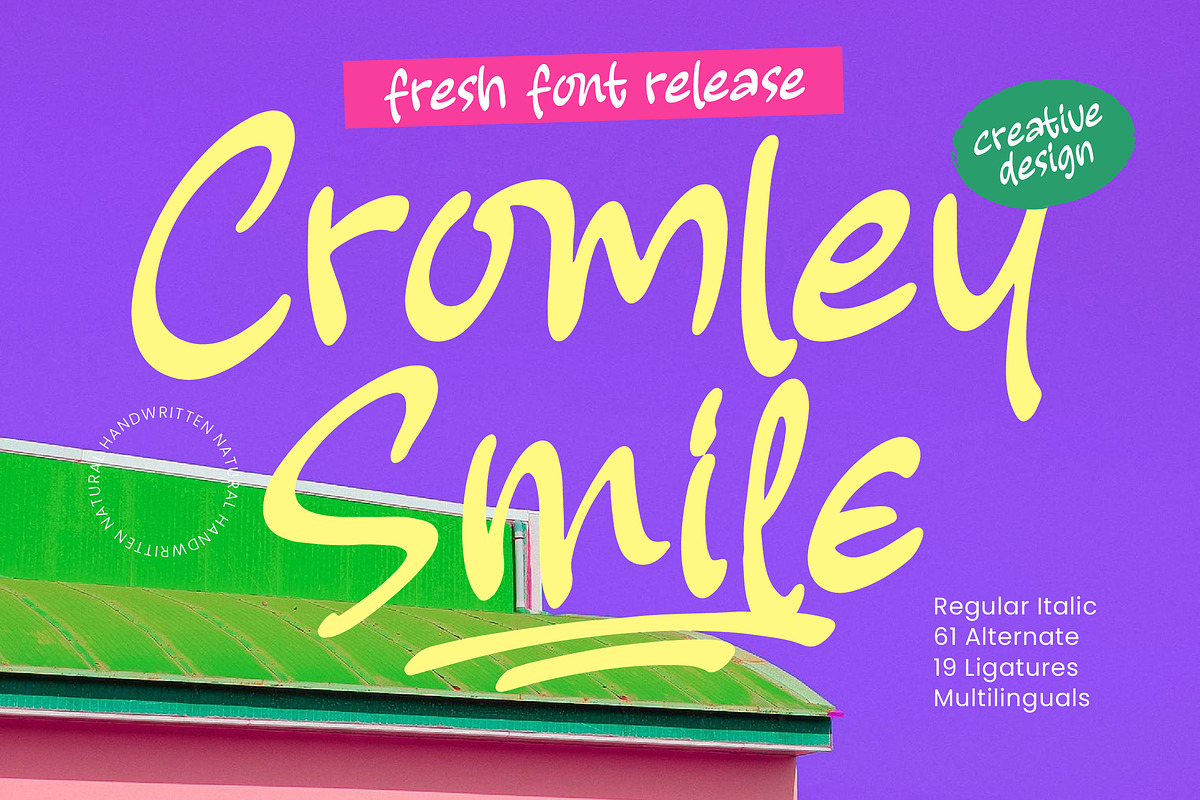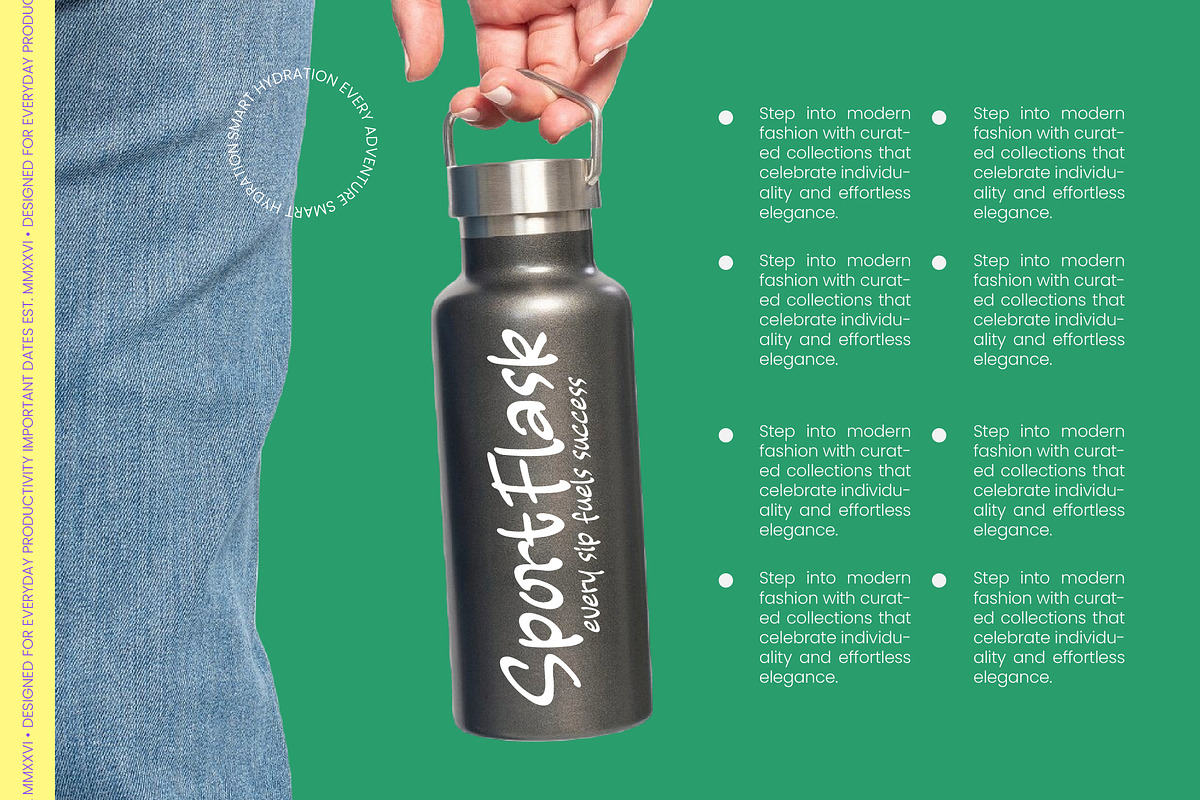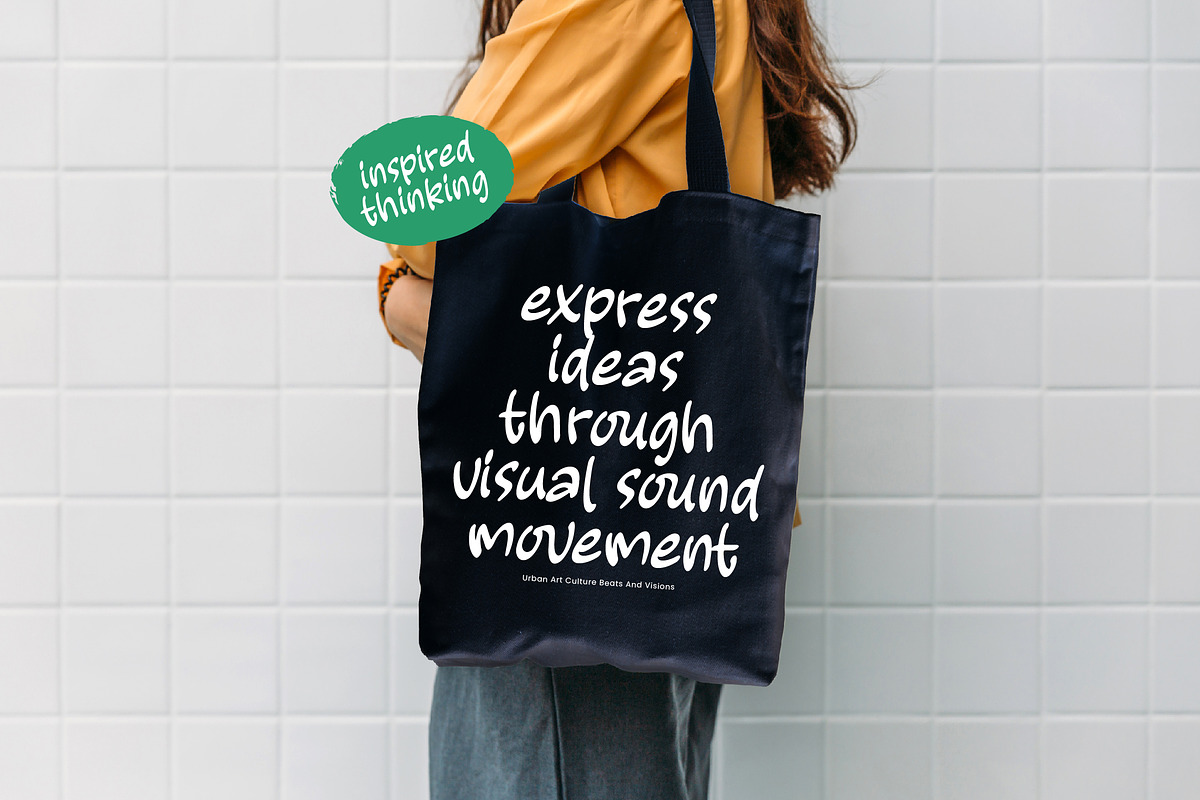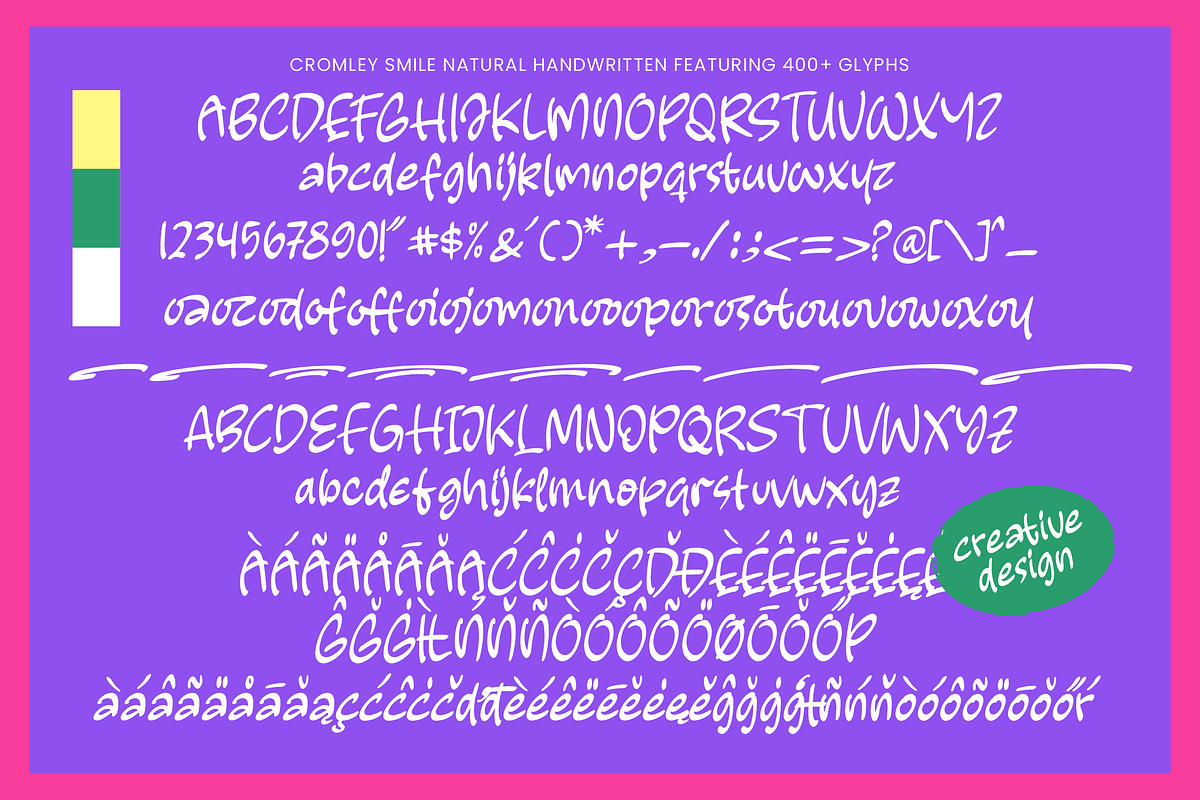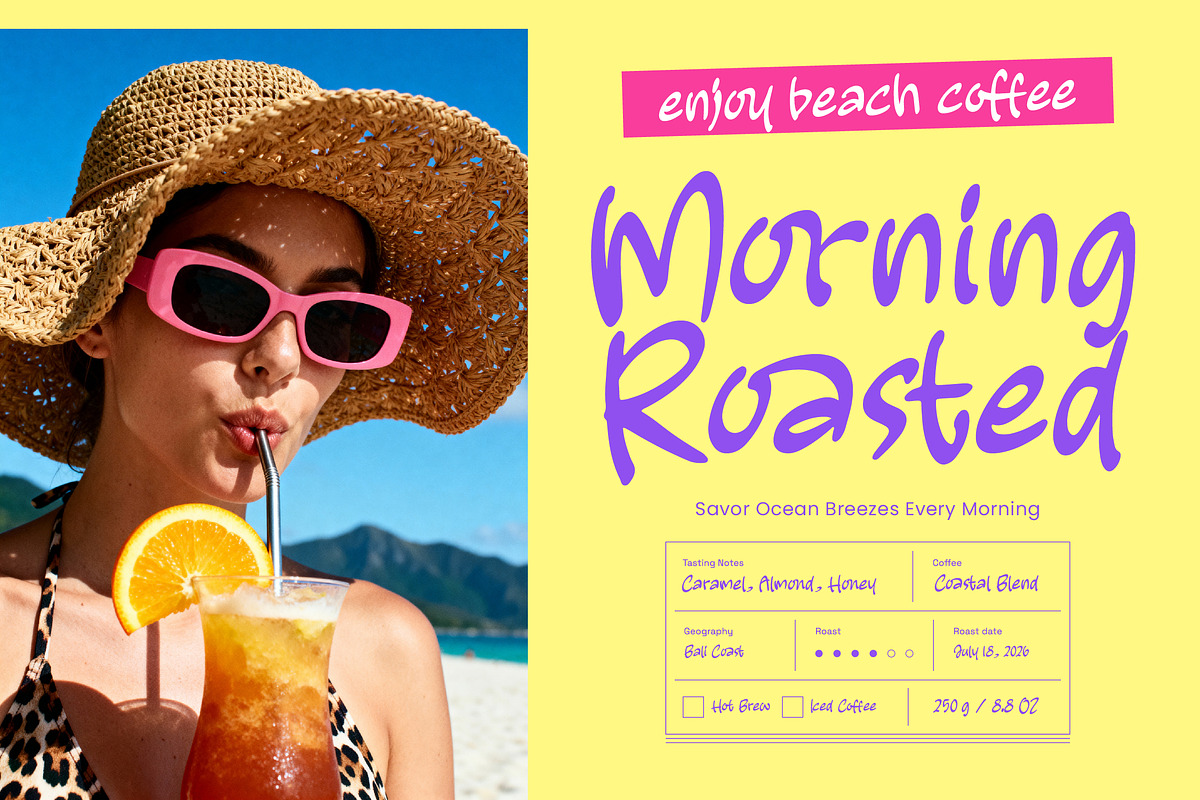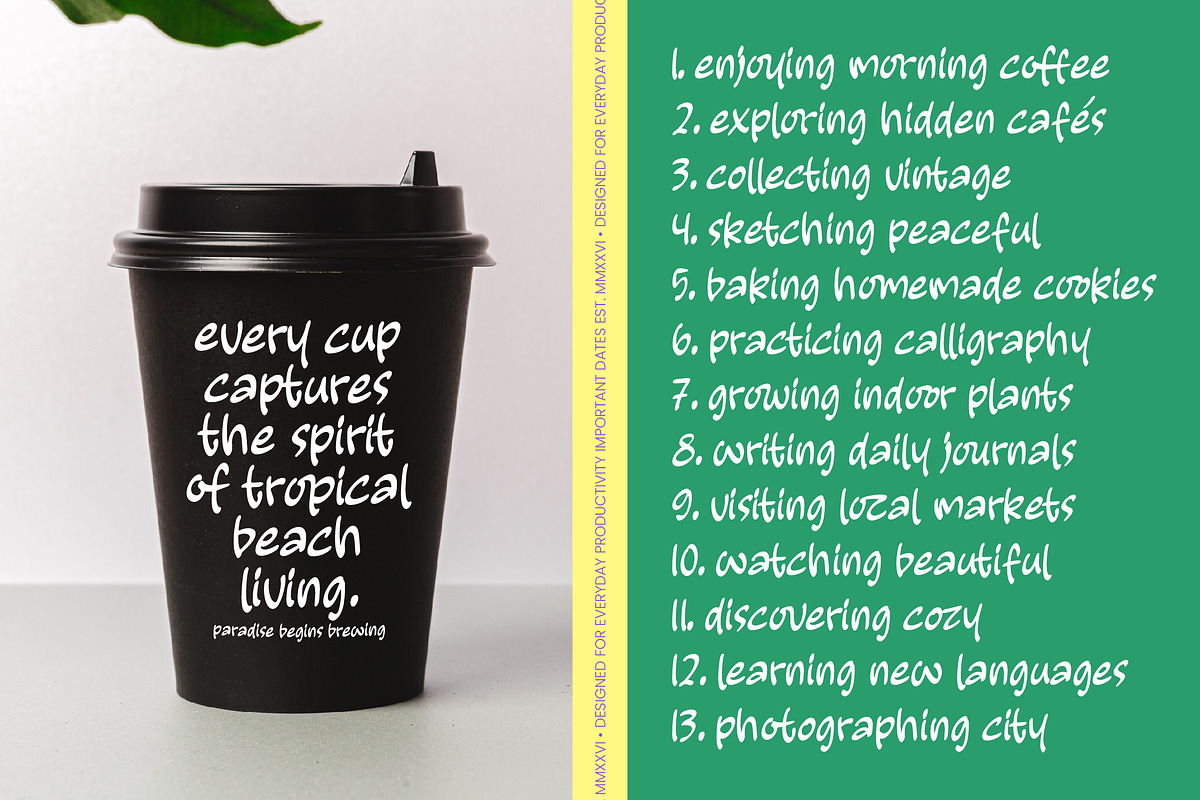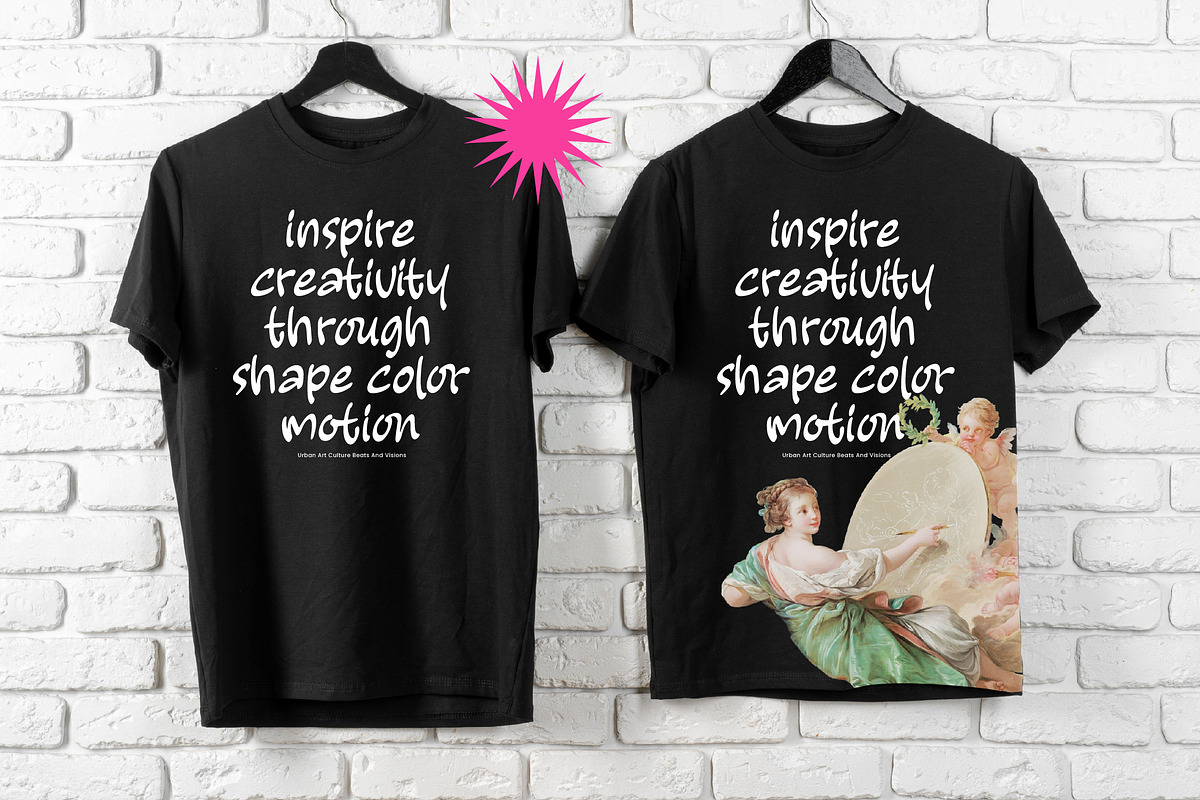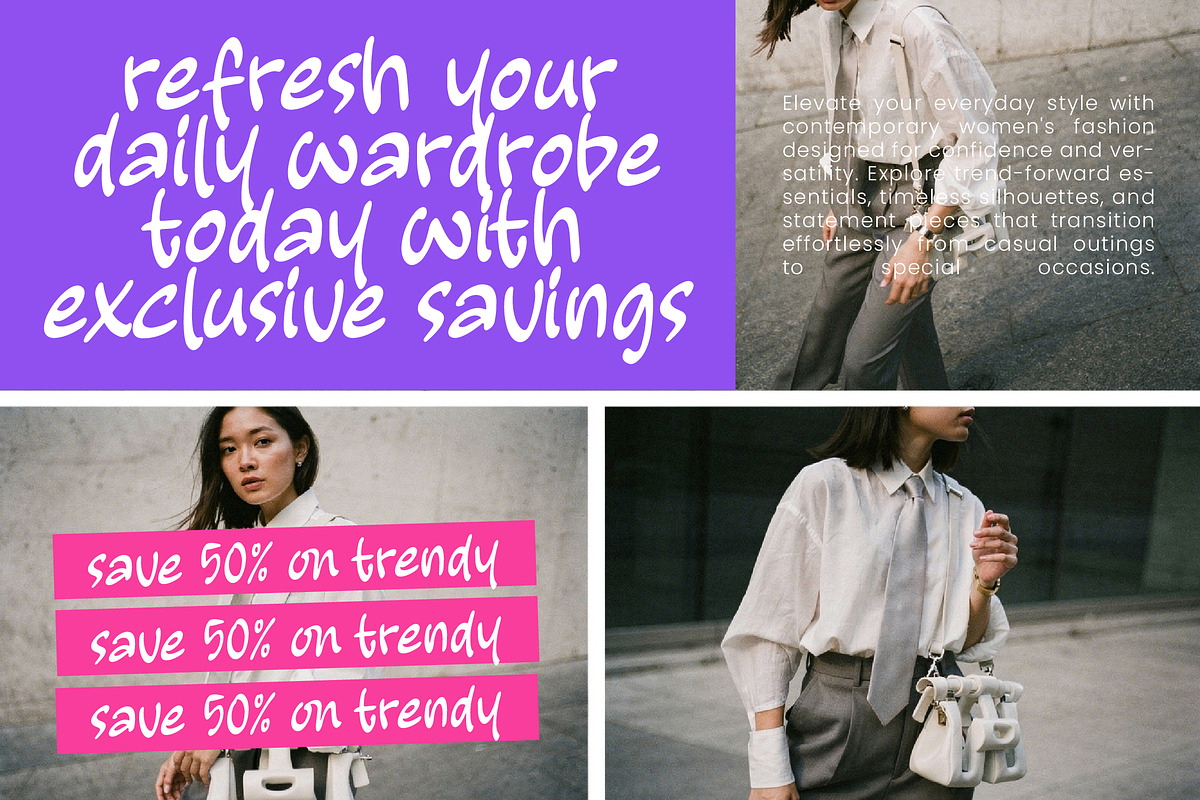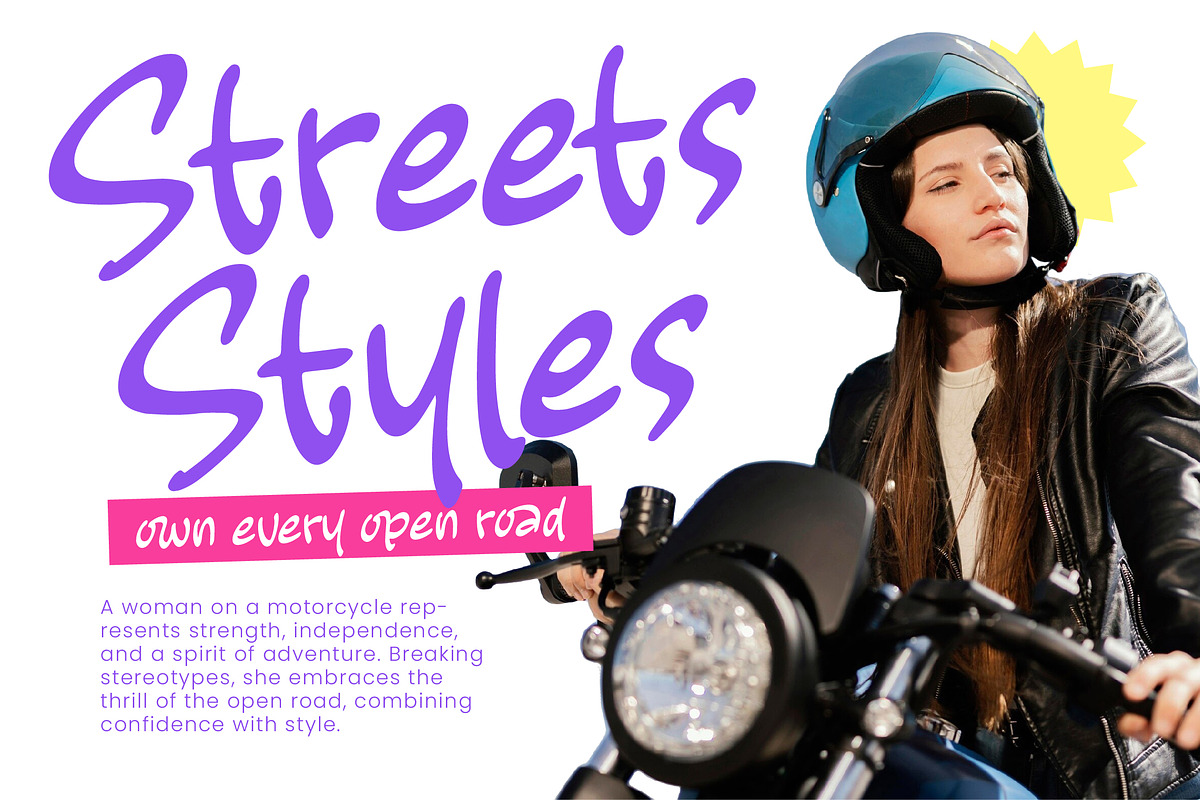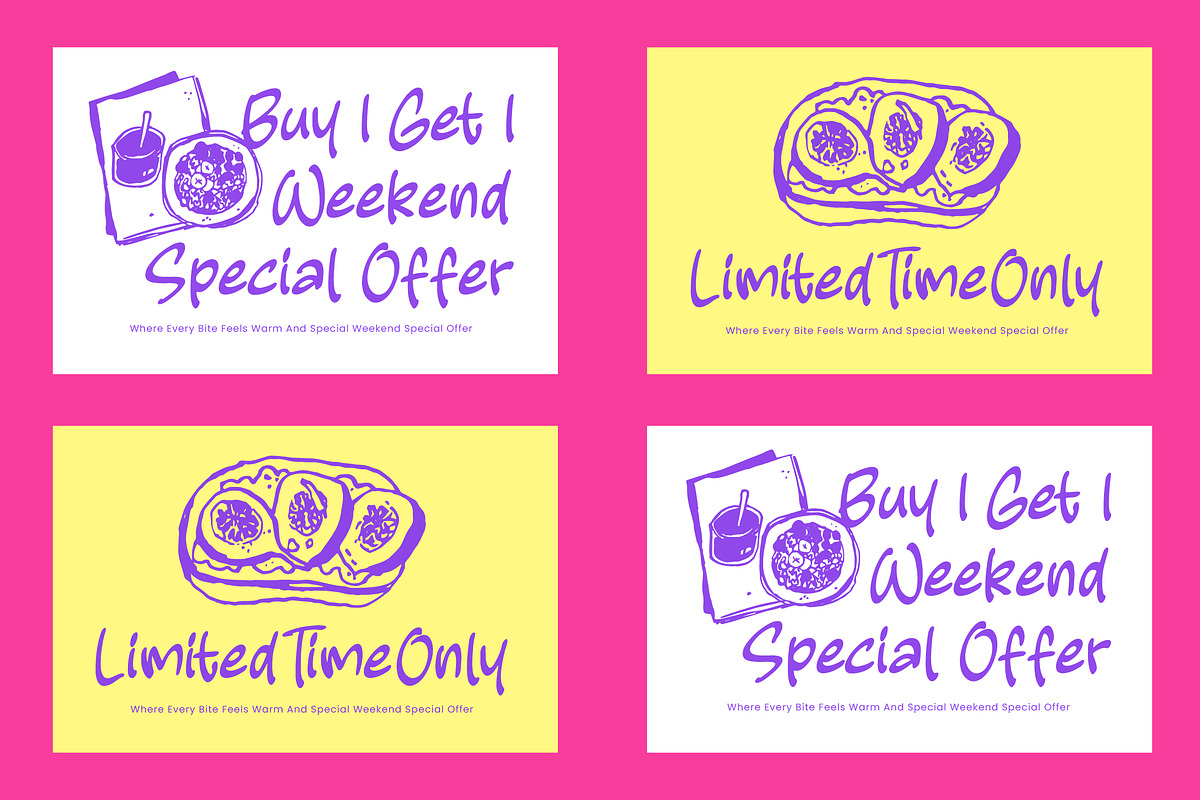
Cromley Smile Natural Handwritten
Cromley Smile - Natural Handwritten , Discover the perfect fusion of organic charm and professional craftsmanship with Cromley Smile - Natural Handwritten. This typeface captures a vibrant, hand-crafted essence through its fluid strokes and rhythmic flow, offering an authentic human touch to any digital canvas. By prioritizing legibility without sacrificing its unique personality, Cromley Smile - Natural Handwritten serves as a powerful tool for designers looking to inject energy and warmth into their creative compositions.
Expand your creative horizons with a typeface engineered for a connected world and diverse linguistic needs. With its extensive multilingual support, Cromley Smile - Natural Handwritten adapts seamlessly across global markets, making it incredibly versatile for international projects. The inclusion of 61 alternates and 19 ligatures ensures that every word feels custom-made, providing a bespoke aesthetic that keeps your messaging fresh and engaging across various cultures.
Elevate your brand identity with a font that resonates with authenticity and modern style in every letterform. Cromley Smile - Natural Handwritten is the ideal application for luxury branding, boutique packaging, and editorial design, where a high-end yet approachable feel is required. Whether used for social media graphics, lifestyle blogs, or chic retail signage, it is perfect for projects that demand a sophisticated and personalized visual narrative.
Experience the ultimate in typographic flexibility and commercial impact by integrating this font into your professional toolkit. Cromley Smile - Natural Handwritten bridges the gap between casual expression and market-ready professionalism, ensuring your brand stands out in a crowded marketplace. This high-contrast handwritten font is a definitive choice for creators seeking a distinctive edge and a timeless, soulful aesthetic in their high-impact marketing materials.